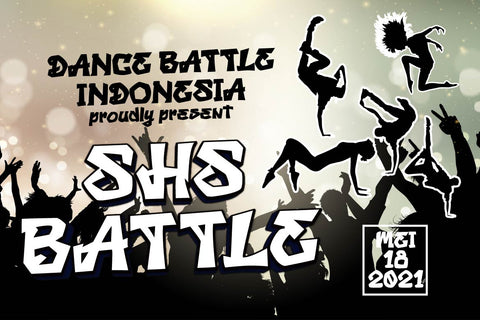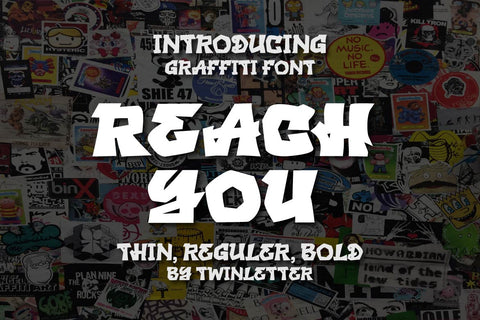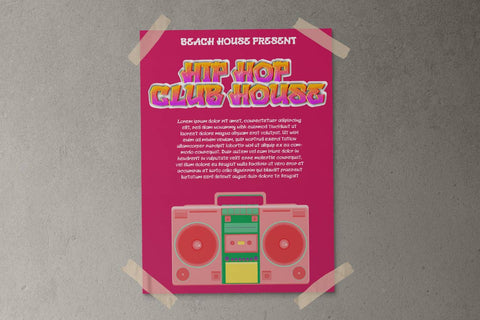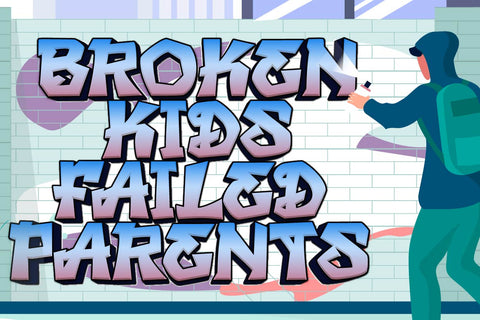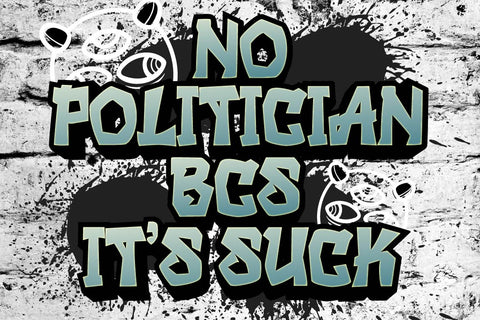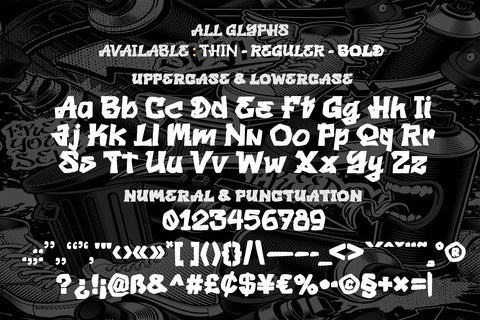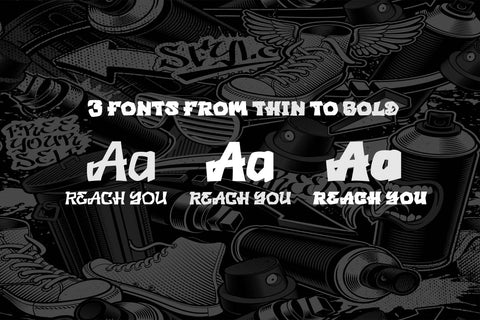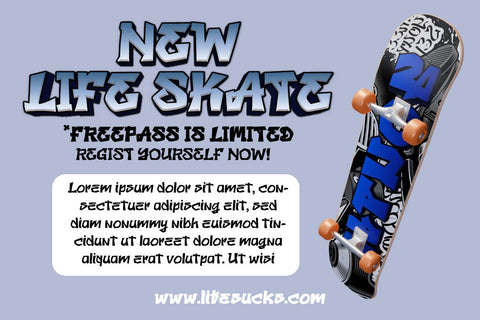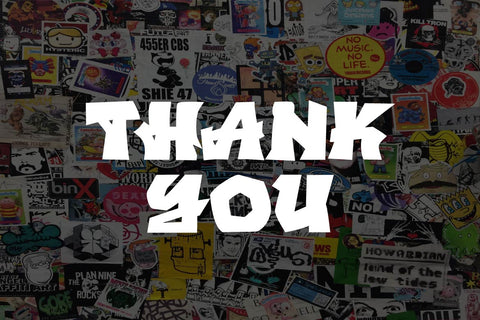
Reach You - Display Graffiti Style Font
Reach You is a graffiti typeface with each character having a distinct shape.
This font will make your project beautiful and exciting, and everyone who sees the uniqueness in your project will think it’s right, elegant, and appealing, so don’t wait, use it today.
This graffiti font is great for product logos, poster titles, headlines, packaging, film titles, logotypes, gorgeous writing, and trendy graffiti designs, among other things.
Of course, if you utilize this font in your numerous creative projects, they will be perfect and outstanding.
Use this typeface right away for your one-of-a-kind and remarkable projects.